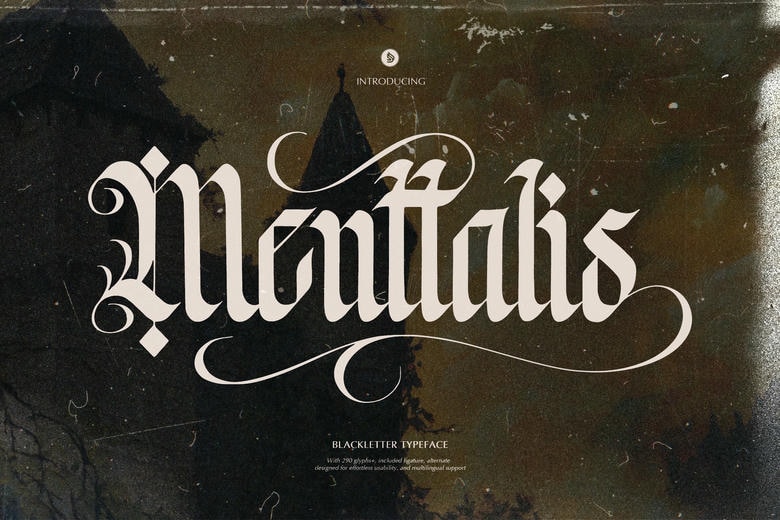
Menttalis Font
Menttalis is one of the most impressive blackletter typeface that combines the medieval elegant and modern gothic style. The font presents the flair of wintry strokes, sharp ends, and beautiful decorative swashes that inspire feelings of pomp and mystery. It contains more than 290 glyphs, alternates and ligatures, ideal to use in vintage branding, gothic posters, tattoos, book covers and high impact editorial work.
Menttalis Blackletter Font